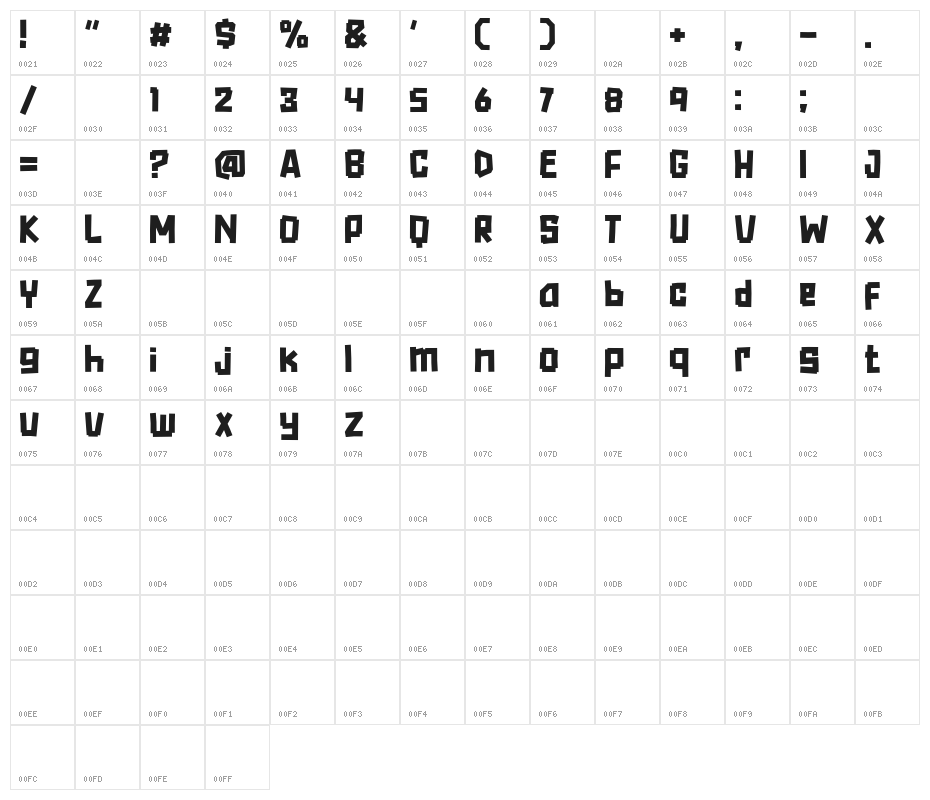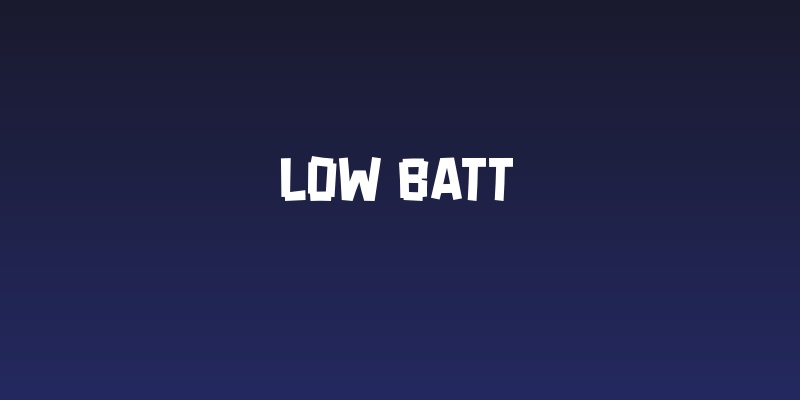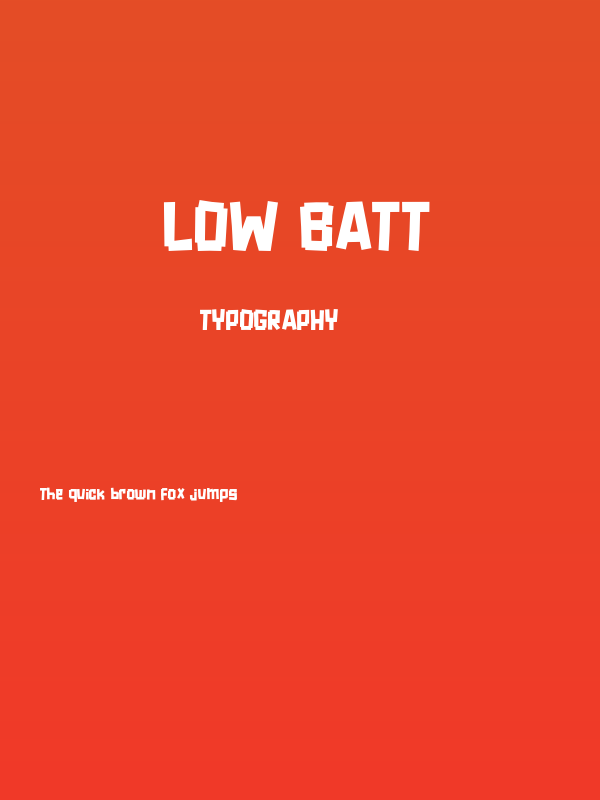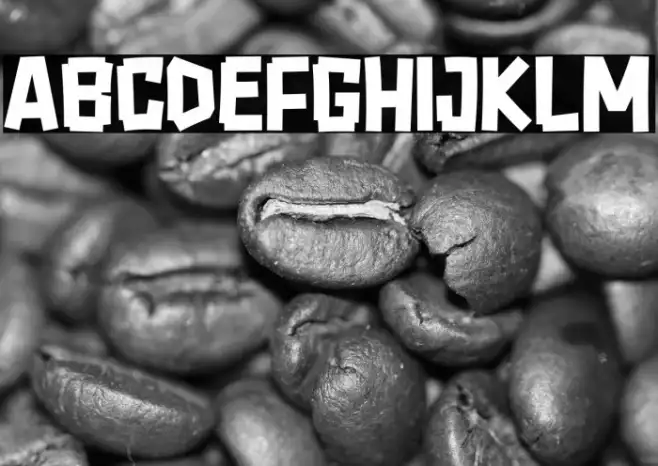
Low Batt Font
Low Batt Description
This font features a bold, angular design with a distinctly modern and edgy appearance. The characters are heavily stylized, with sharp edges and a blocky structure that gives them a strong, impactful presence. The uppercase and lowercase letters maintain a consistent style, with the lowercase letters being slightly more condensed. Numbers and special characters follow the same bold and angular theme, ensuring uniformity across all glyphs. The font's unique style makes it stand out, ideal for projects that require a strong visual impact.
| Proposed Projects | Ideal for posters, album covers, video game graphics, and any project needing a bold, impactful typeface. |